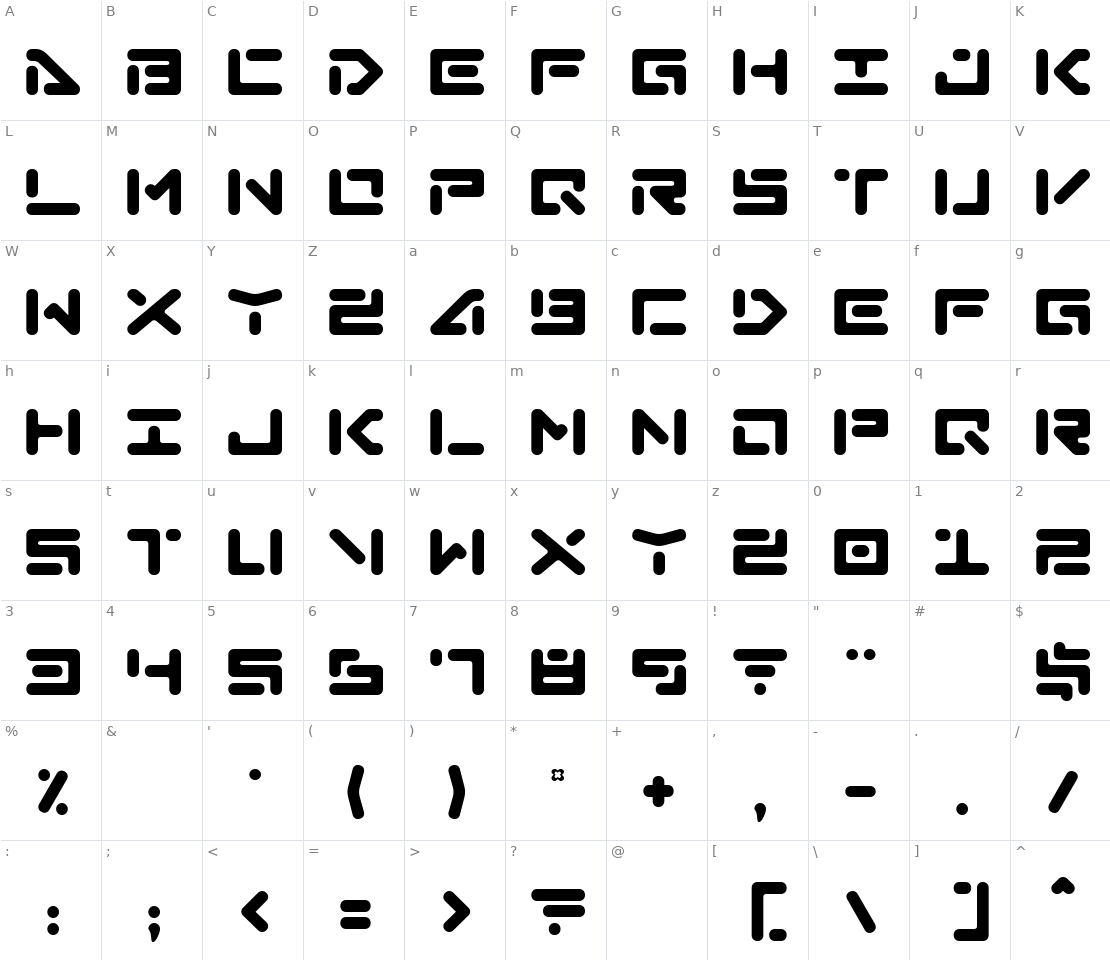
Abduction
Abduction is a bold, angular display face from Grey Wolf Web Works with sharp geometric letterforms that feel like they belong on a spacecraft hull or alien transmission screen. The heavy strokes and hard angles give it an aggressive, otherworldly presence, built for headlines, posters, and sci-fi themed projects where you need type that looks like it originated somewhere beyond Earth.